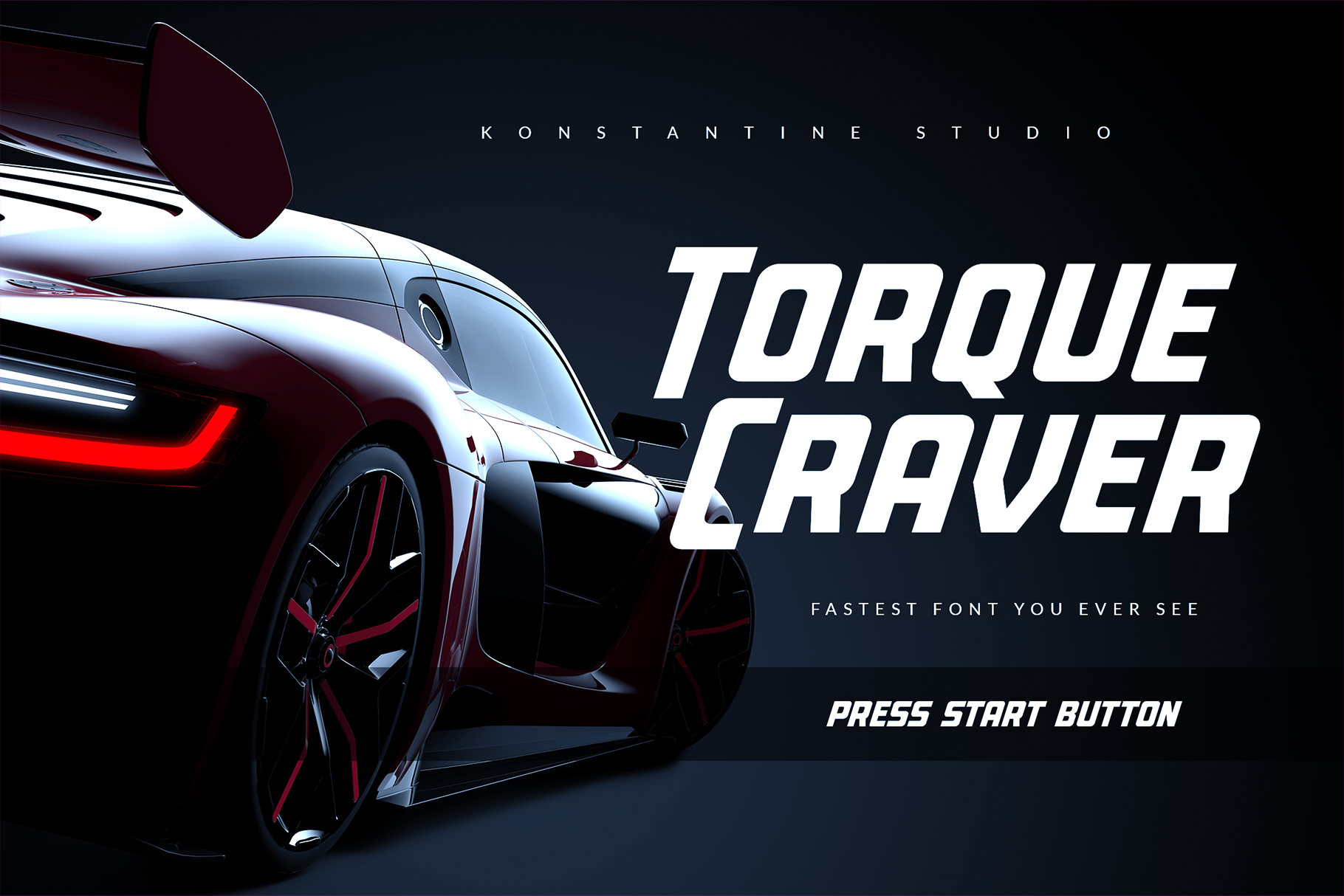
Torque Craver - Fast Racing Fonts
Experience the fastest ride in a form of visual for your design with Torque Craver. Inspired from the fast car branding and futuristic digital concept, aiming the fast moving forward mindset with bold form to make the statement louder and faster than ever.
Perfectly fit for your sporty branding, esport, gaming, poster, cars branding, automotive events, mens product, motorcycle, digital futuristic concept, and many more.